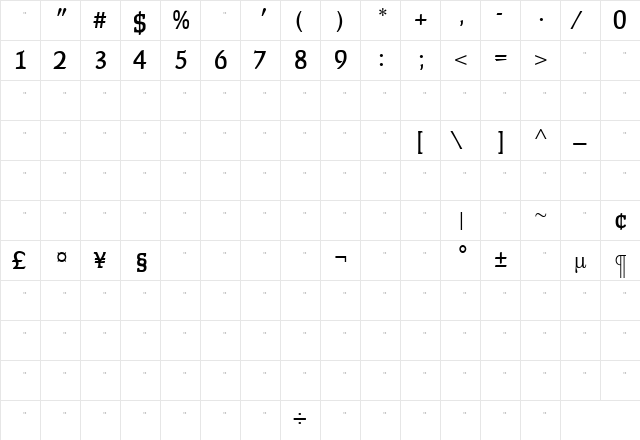
FaustMediumTab Roman
Design Context for FaustMediumTab Typeface
FaustMediumTab takes a measured approach to typography — its balanced proportions and neutral character make it a reliable workhorse for both digital and print work.